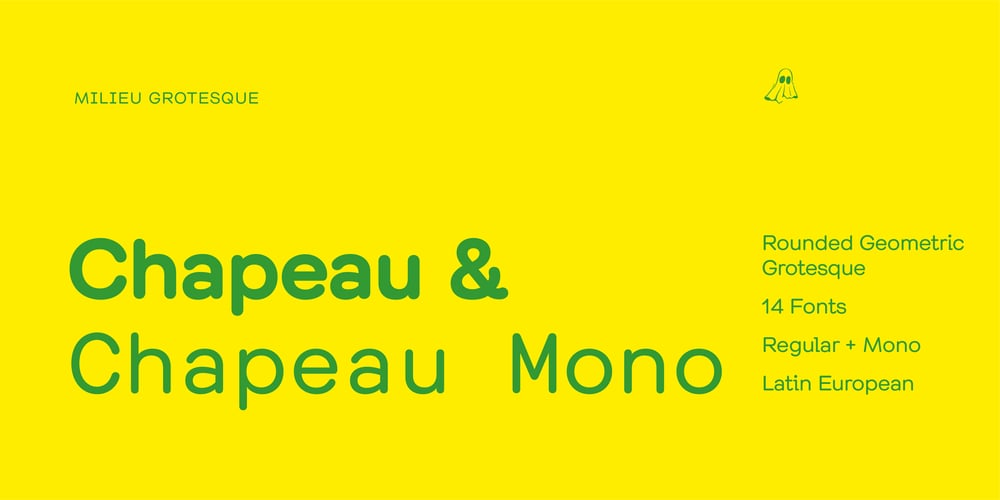
Chapeau
Chapeau font
Chapeau Font Family was designed by Timo Gaessner and published by Milieu Grotesque. Chapeau contains 14 styles and family package options. Chapeau is loosely inspired by a Johnny Cash letter written on an old IBM typewriter. The original typeface called “Doric” was a rare example of a proportionally aligned typewriter face, supplied by IBM in the late 1960s. Based on simple geometric shapes, Chapeau is a low contrast sans-serif with rounded endings. The letterforms have been carefully aligned to avoid exceeding width and to achieve an efficient, contemporary appearance.